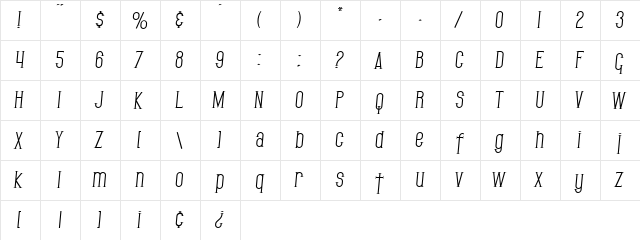
SF Gothican Italic
Design Context for SF Gothican Typeface
SF Gothican takes a clean, functional approach — its unadorned letterforms prioritise legibility and work reliably across screen and print environments. The dynamic lean of this cut emphasises speed and emphasis in any layout.
Font Pairing: Works well alongside a characterful serif or display font that can carry the expressive load while SF Gothican handles the functional copy.
Pro Tip: Pair SF Gothican with a display or serif font for headlines — its neutral character makes it an excellent supporting player in complex typographic systems.